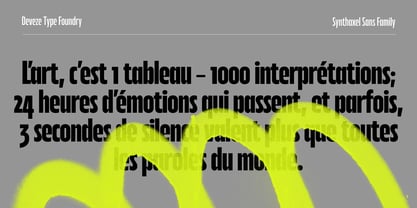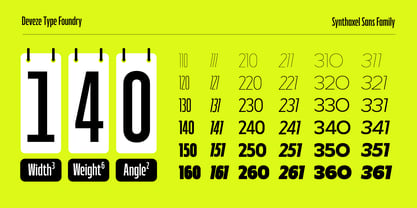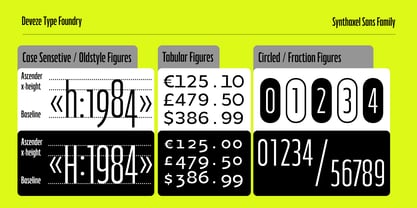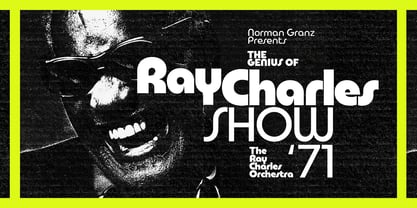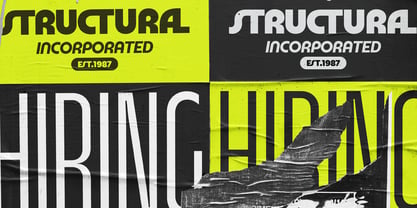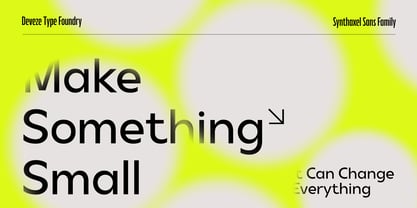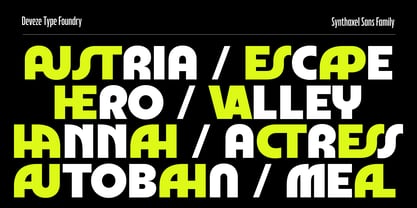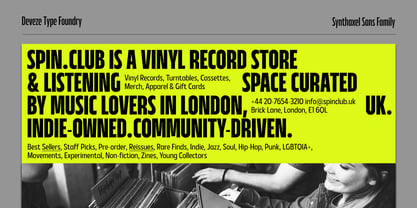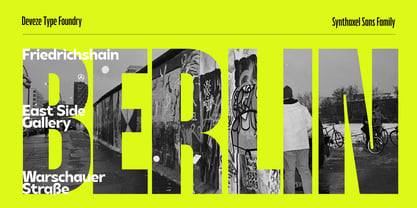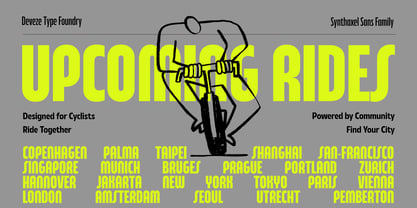
DT Synthaxel Sans
von Deveze Type
Die Schriftfamilie DT Synthaxel Sans wurde von Maya De La Deveze entworfen und von Deveze Type veröffentlicht. DT Synthaxel Sans enthält 36 Stile und Familienpaketoptionen. Mehr über diese Familie
DT Synthaxel Sans is a shape-shifter in the world of grotesques — equally at home in the precision of Swiss-style typography and in the playful curves of retro 80s design. At its core, it’s clean, balanced, and modern; but with the twist of a stylistic set, it reveals rounded, almost vinyl-soft forms that hum with nostalgia. Three widths — from disciplined Condensed to confident Wide — give it different voices, while six weights with matching Obliques ensure a full expressive range. Packed with typographic extras — from old-style numerals to case-sensitive forms, arrows, circled numbers, and a generous set of ligatures — DT Synthaxel Sans isn’t just a font family. It’s a modular system for building identities that feel both timeless and unexpected.
Designer: Maya De La Deveze
Foundry: Deveze Type